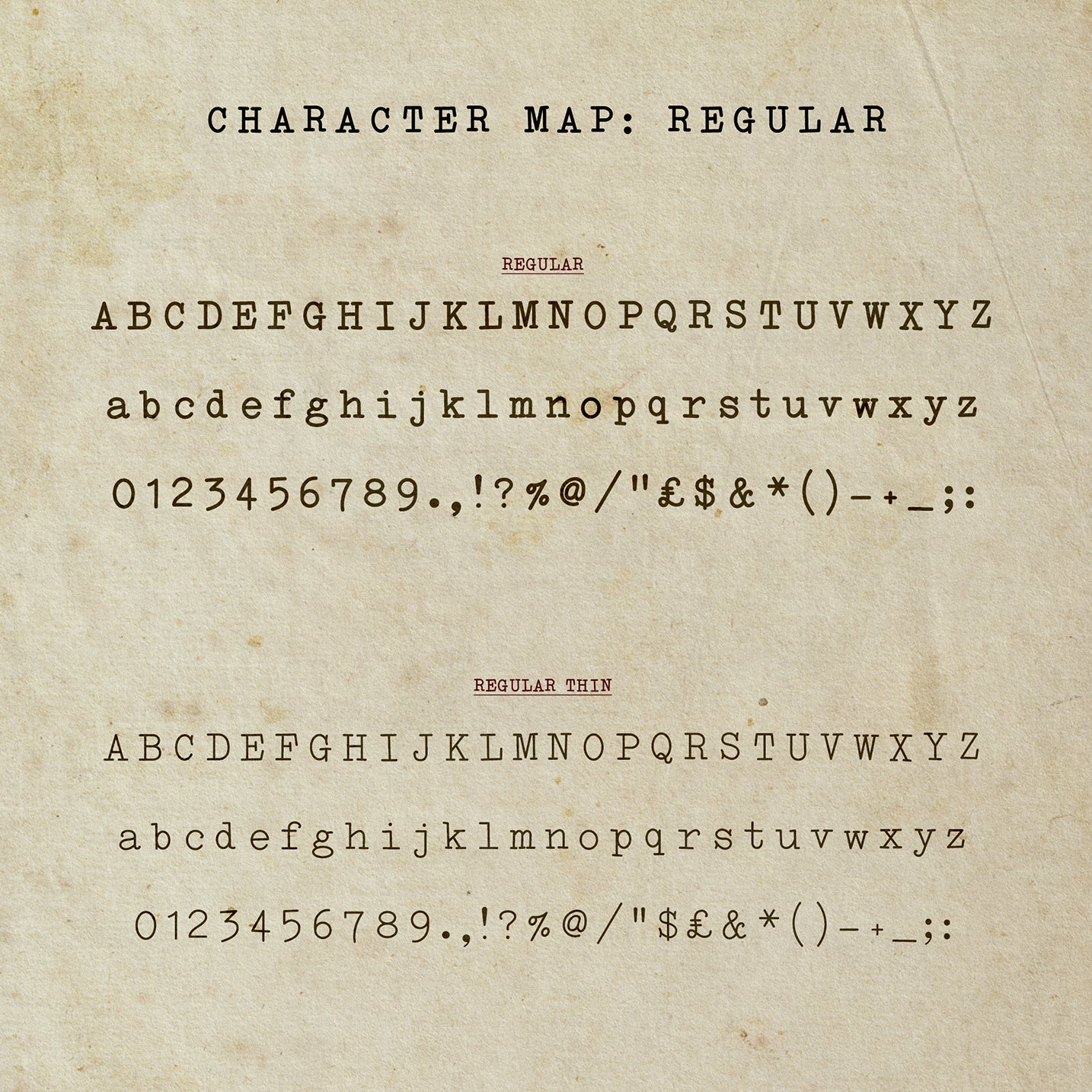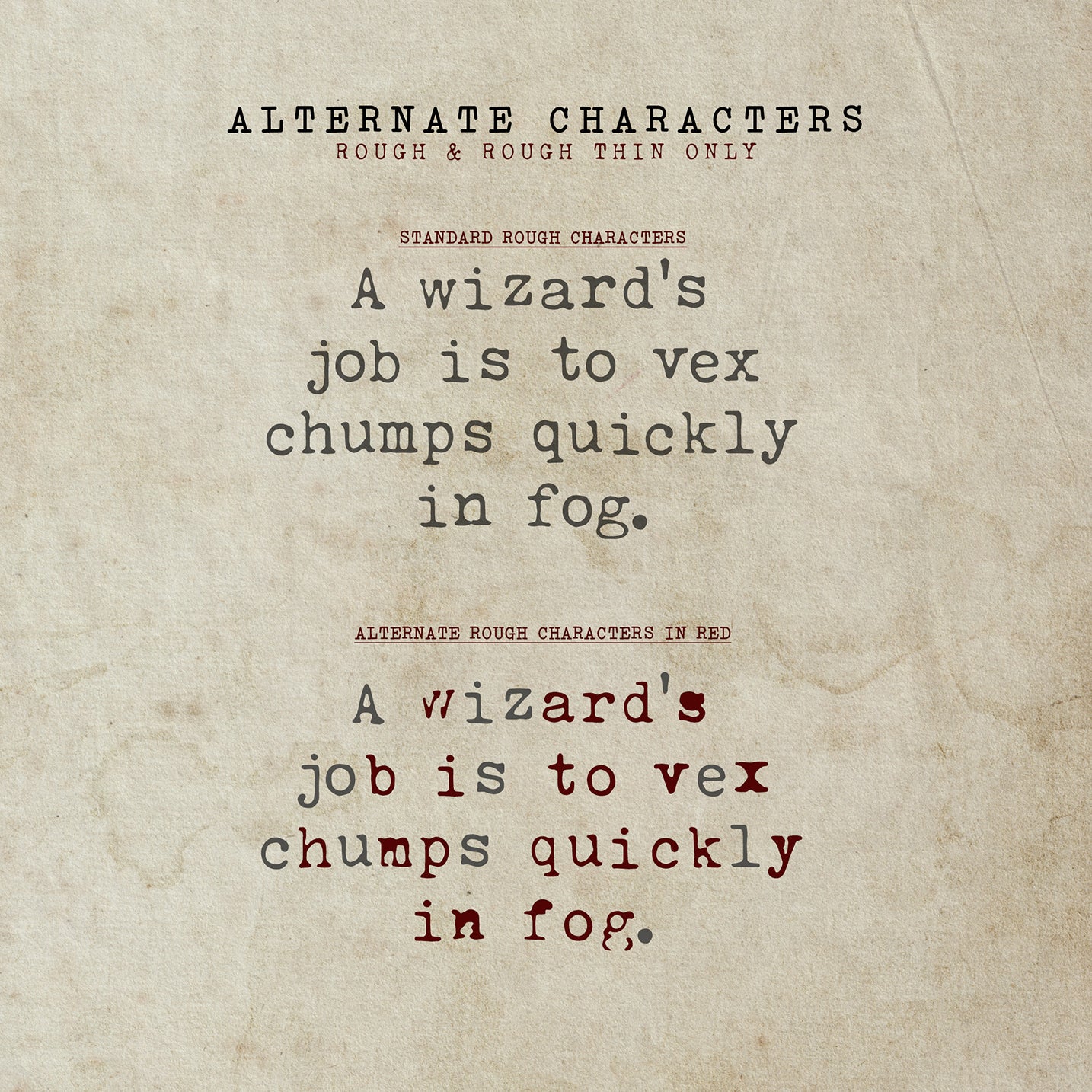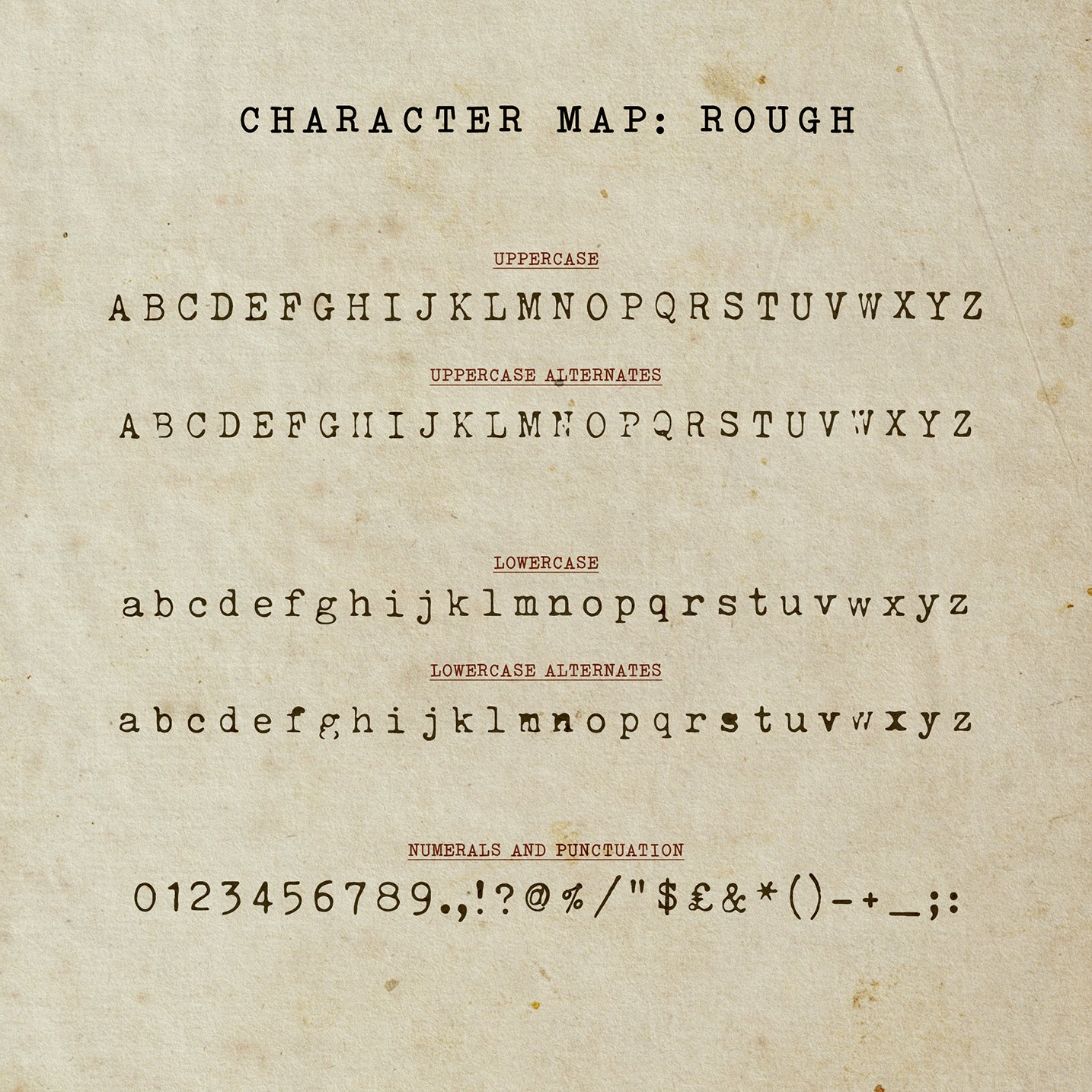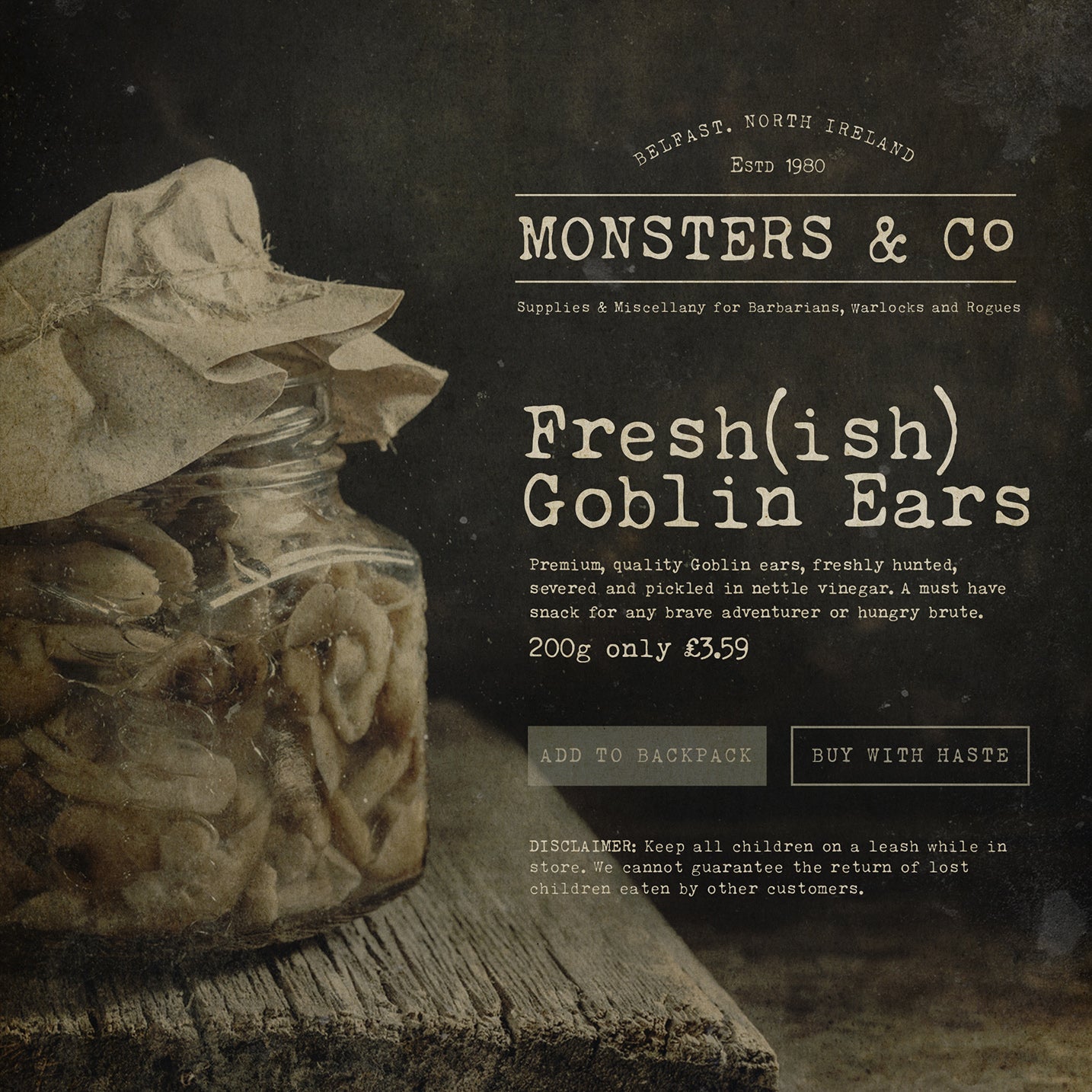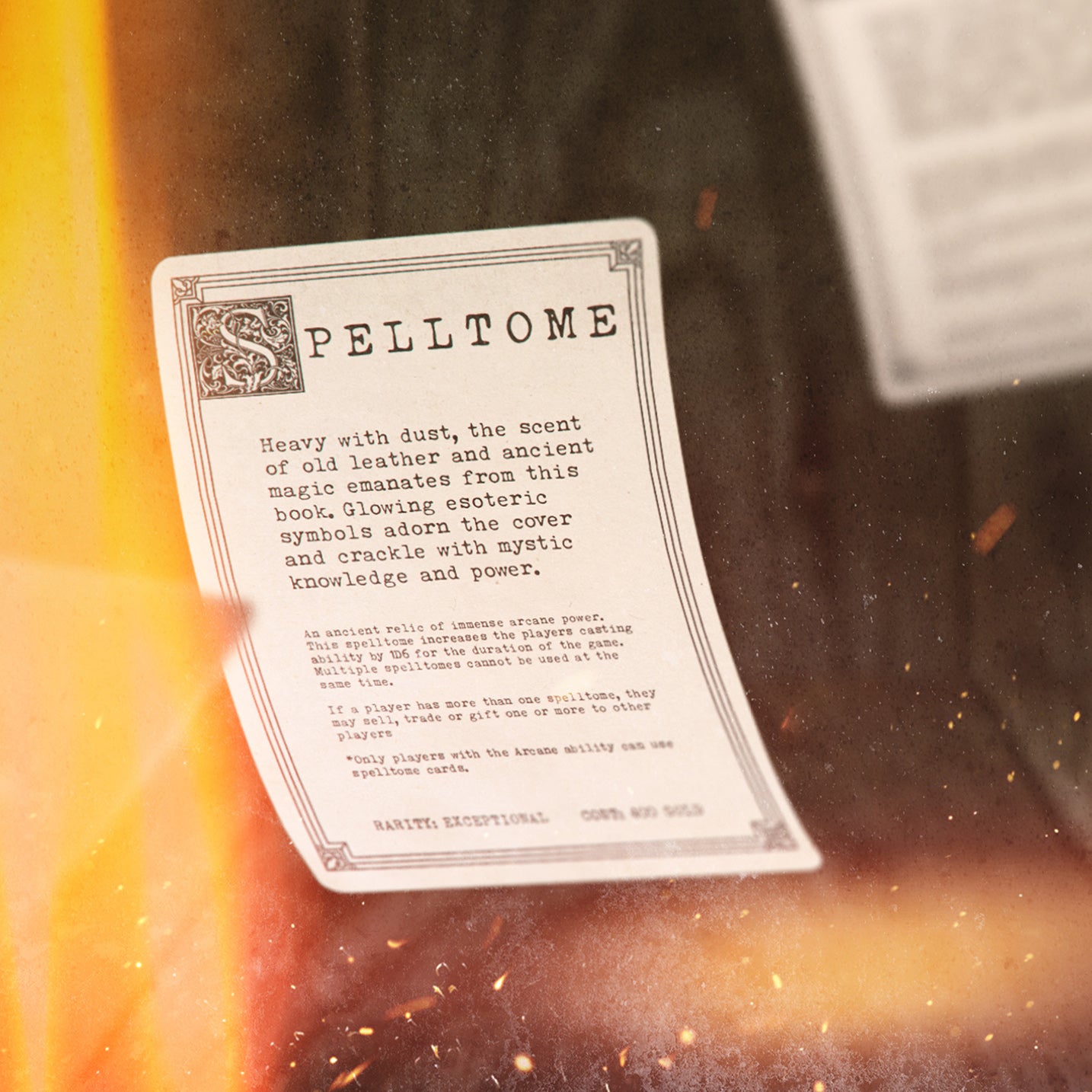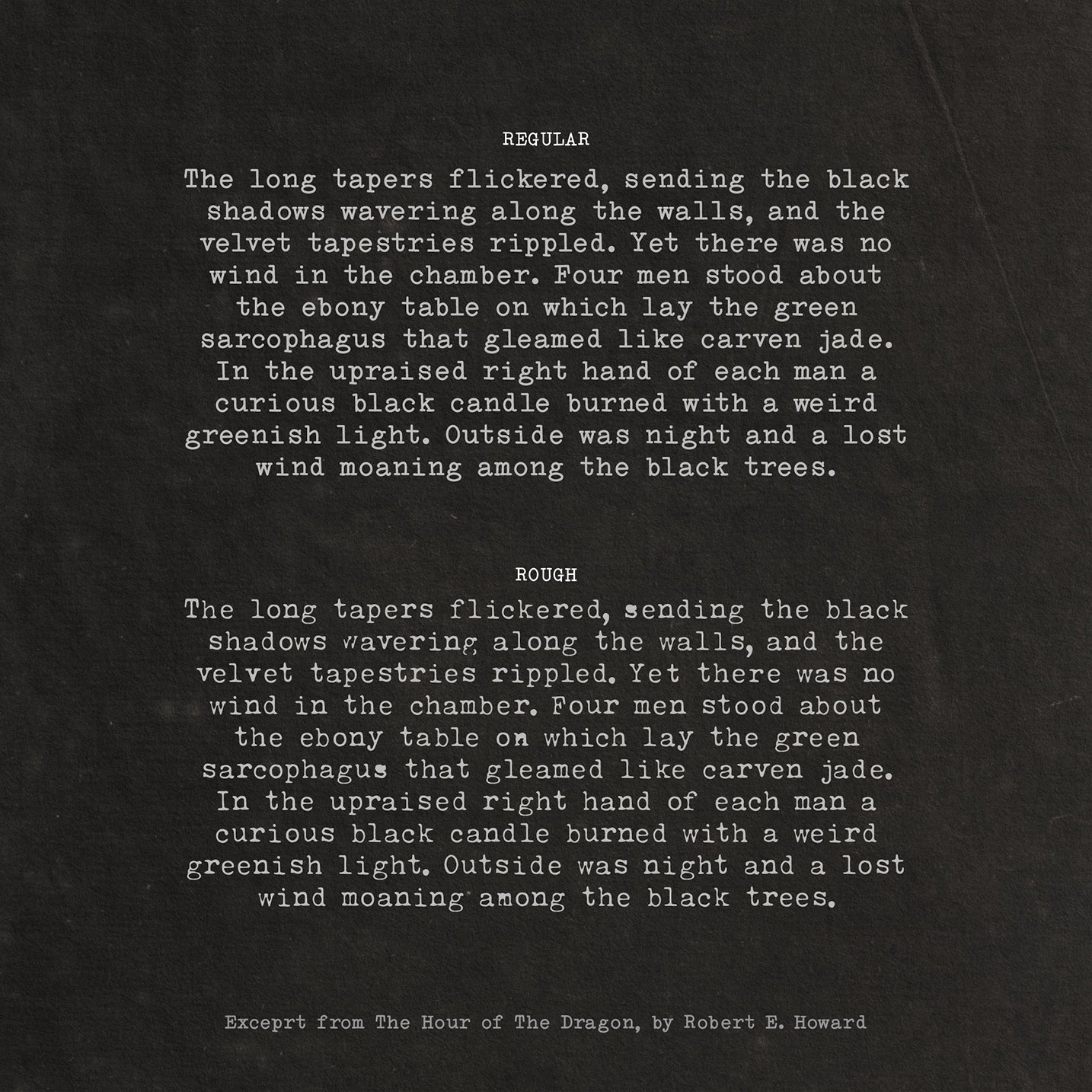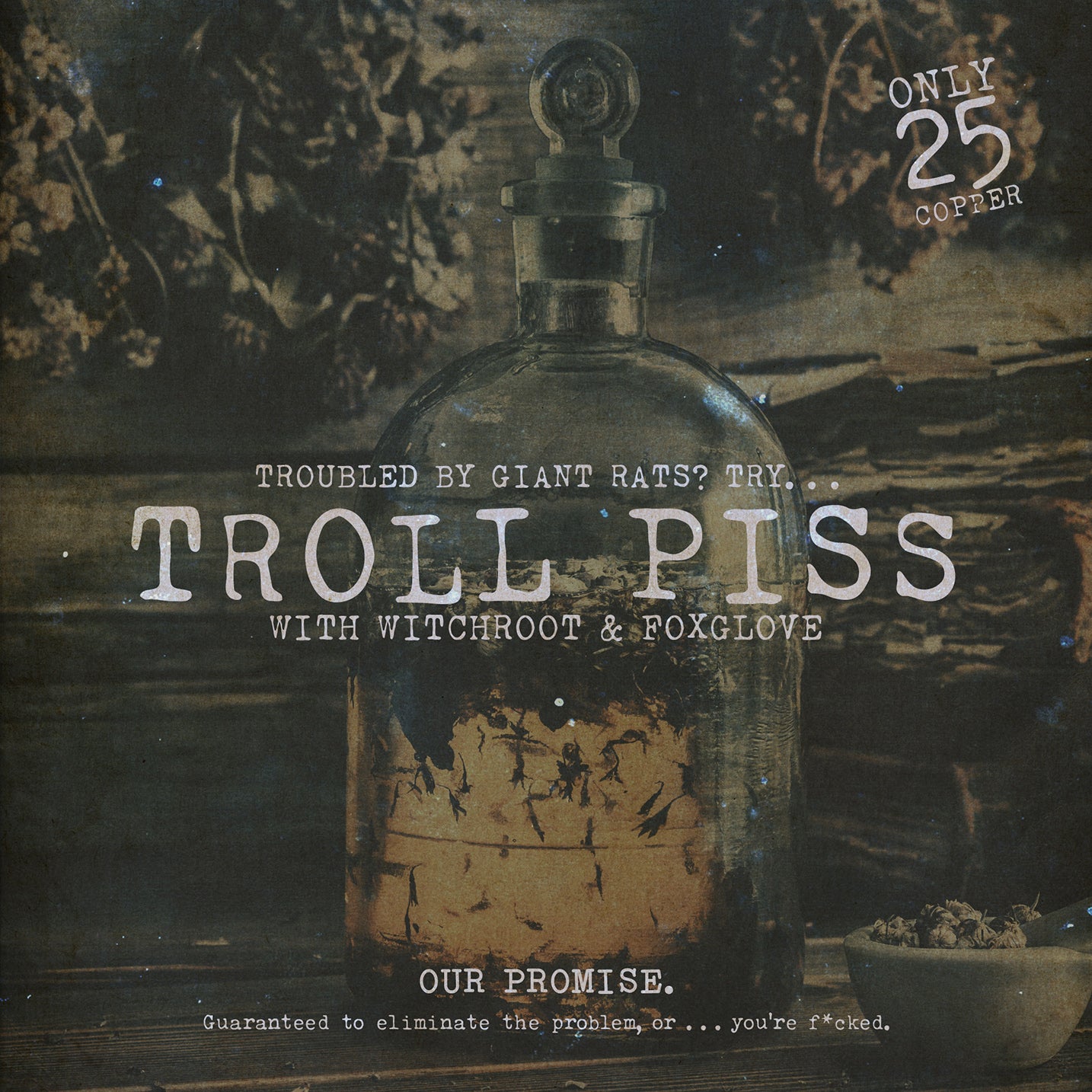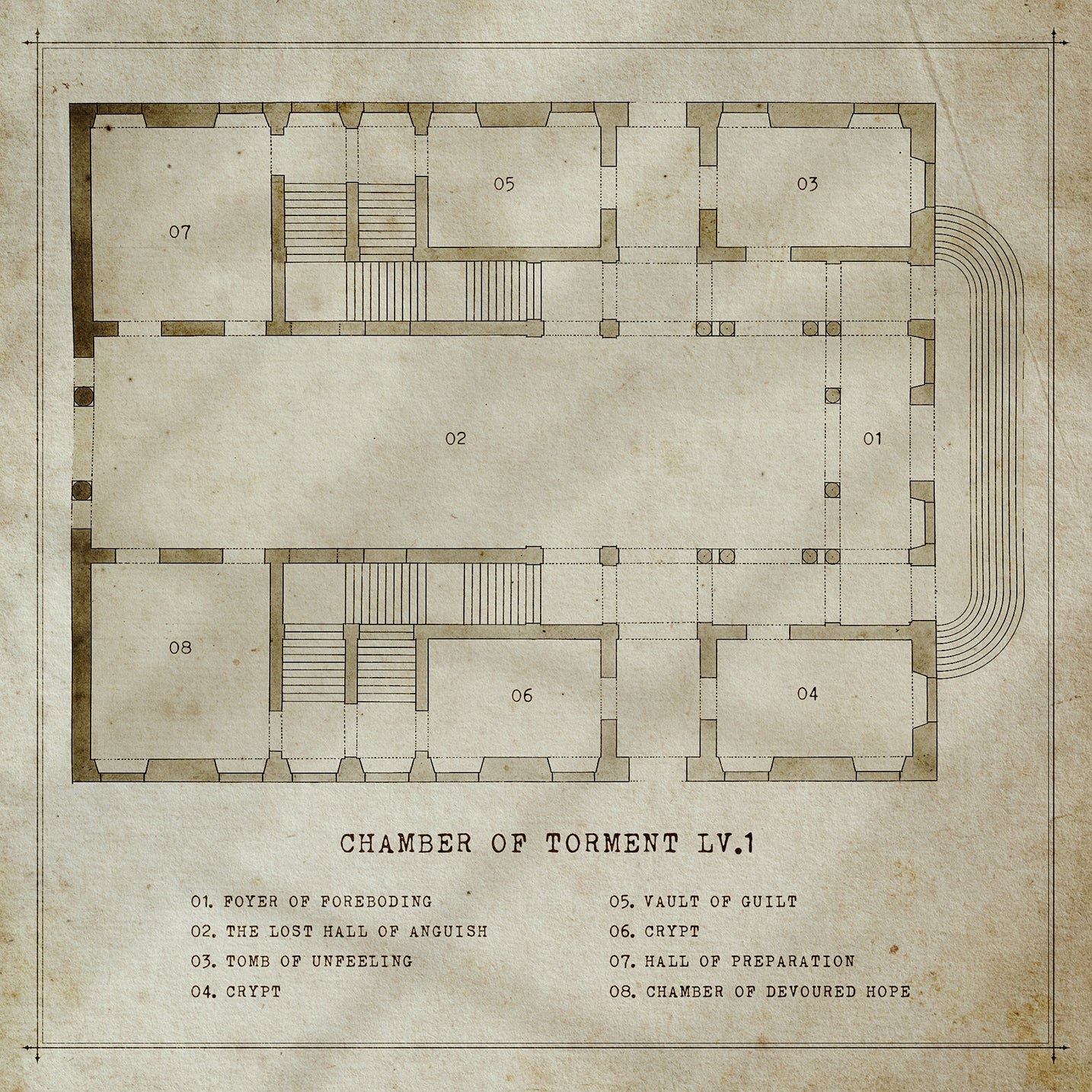
Merchant Ledger
Merchant Ledger is a versatile, vintage typewriter font that comes in four weights: Regular, Regular Thin, Rough & Rough Thin. Created using real typewriter keys, each letter in the Rough family contains a full set of upper and lower case alternate characters that display all the subtle imperfections providing a truly authentic feel.
Merchant Ledger is ideal for labelling dungeon and world maps, creating potion and prop labels, spell cards, custom character sheets, creating letters and documents for your players and campaigns, or anywhere you might want that OSR retro and nostalgia feel....and much more besides!
It also has multilingual support for over 70 languages...It speaketh in many tongues!